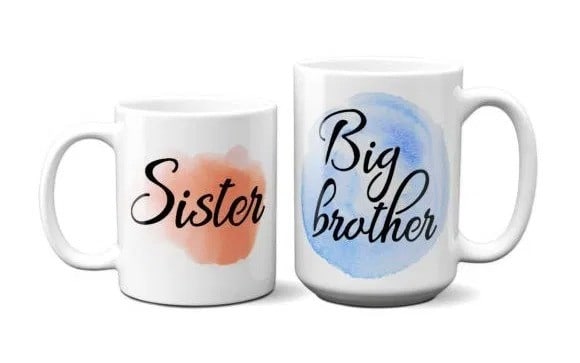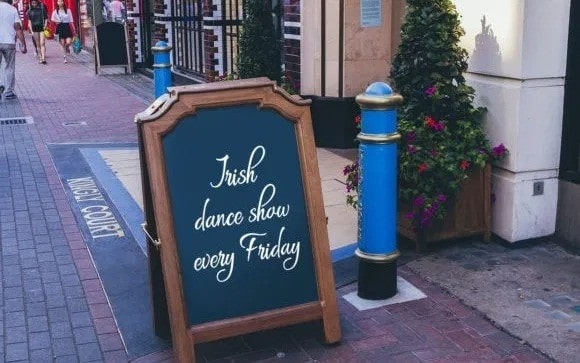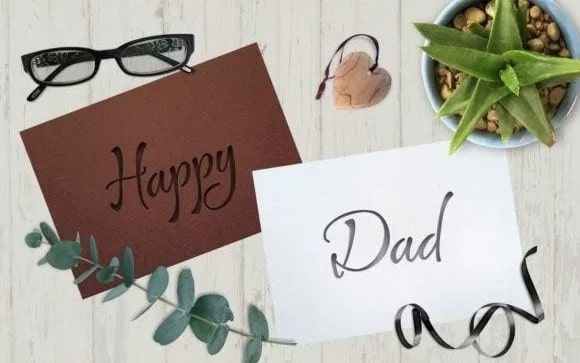
Direkt Stencil Script Font
Direkt Stencil Script Font is a handcrafted script typeface with a handwritten style make this font looks elegant, stylish and natural.This font is a script typeface from the designer Digital Typeface Studio. It’s a script without closed loops on the characters, so you can create a truly unique and original looking design. Download and use across a huge range of programs such as Adobe programs, Corel programs, Cricut and many others
Direkt Stencil Script Font perfect for handcrafted, craft, invitation, logos & branding , photography, advertisements, watermark, social media posts, product packaging, product designs, label, wedding designs, stationery, special events or anything that need handwriting taste.